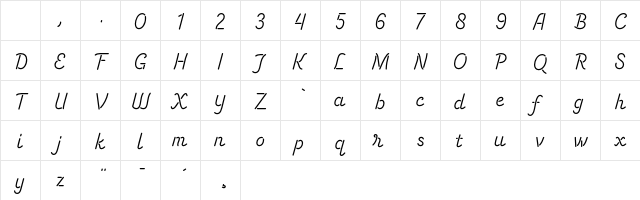
Complete Energetic Script Limited Regular glyph index. Displaying only characters natively supported by Energetic Script Limited Regular font.
Energetic Script Limited flows with the natural rhythm of handwritten lettering, making it ideal for designs that call for warmth and personal expression.
Font Pairing: Combine Energetic Script Limited with a simple geometric sans for maximum contrast - the tension between flowing curves and clean structure is a classic typographic pairing.
Pro Tip: Use Energetic Script Limited for short runs of text - names, titles, or taglines. Extended body copy in script faces tires the eye quickly.